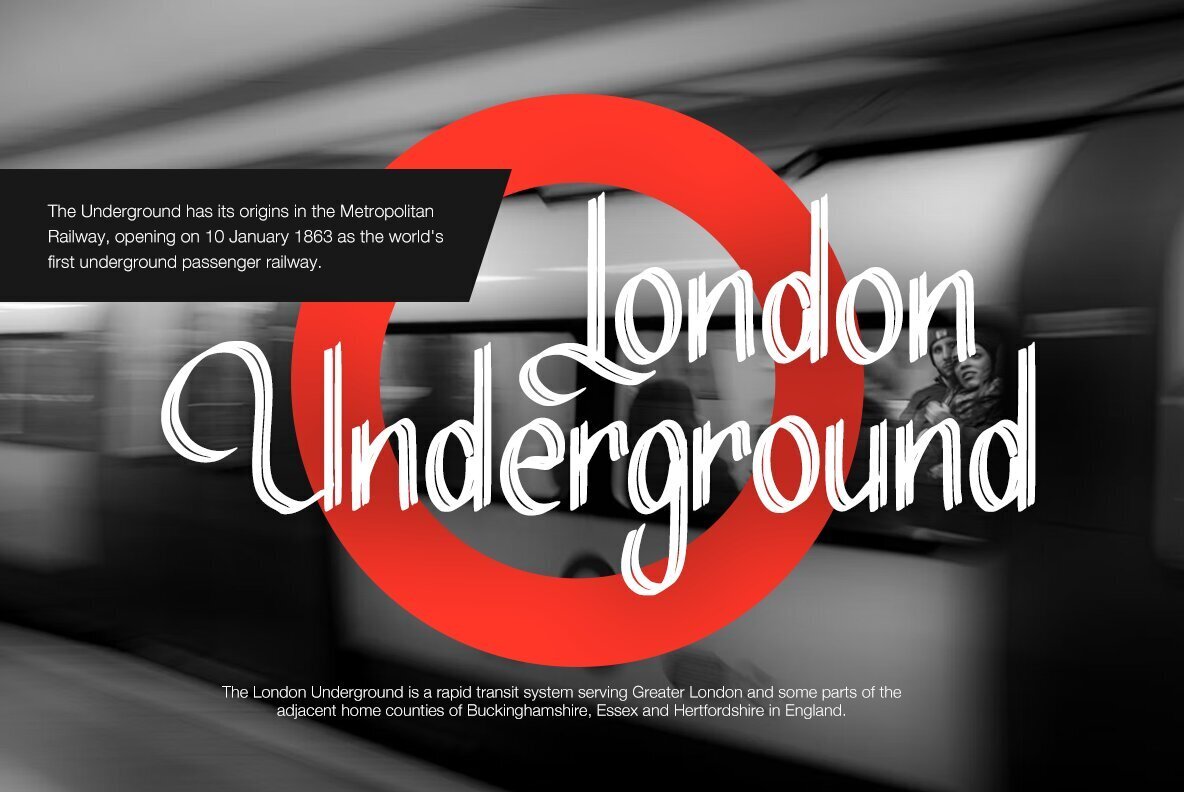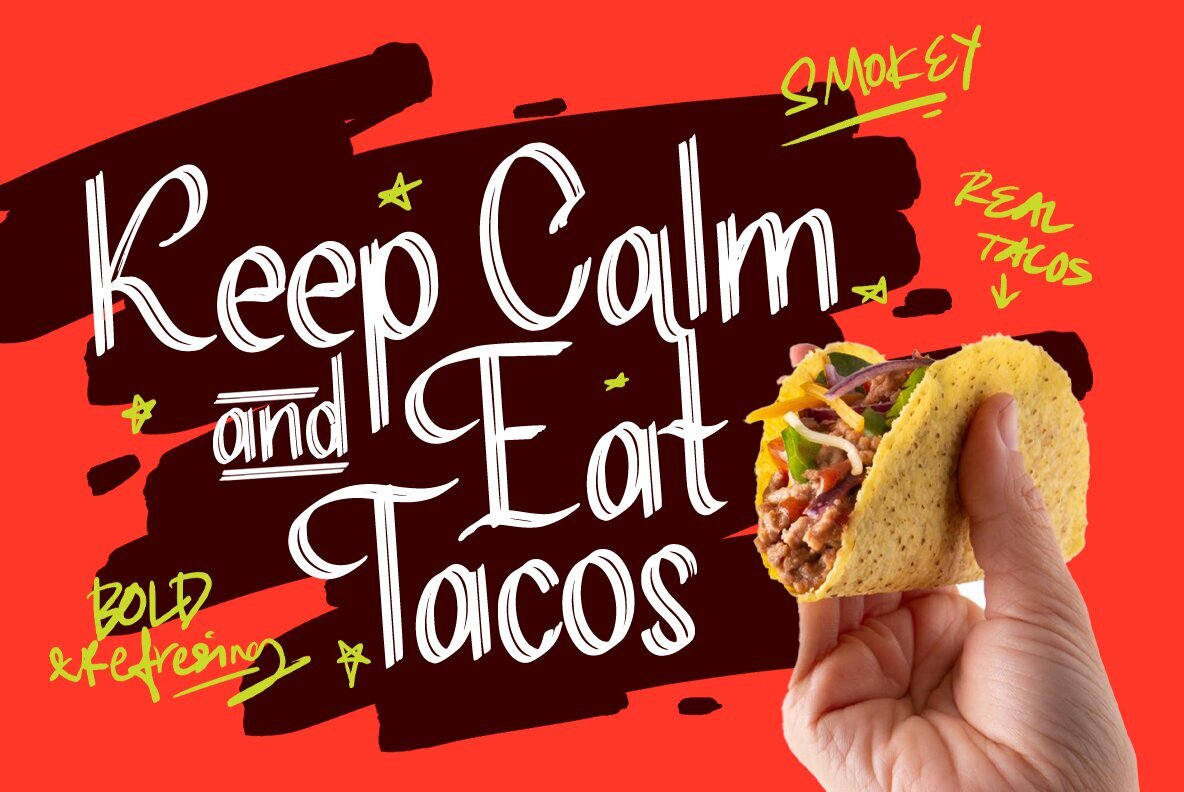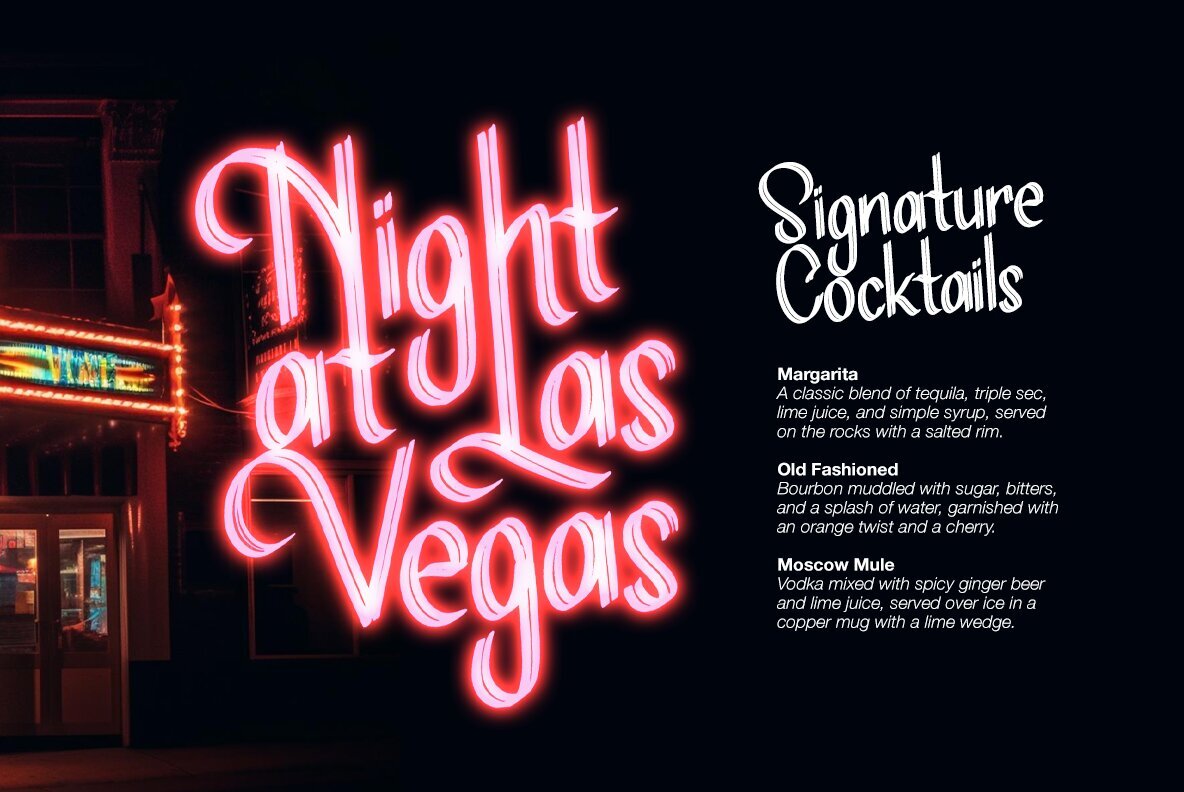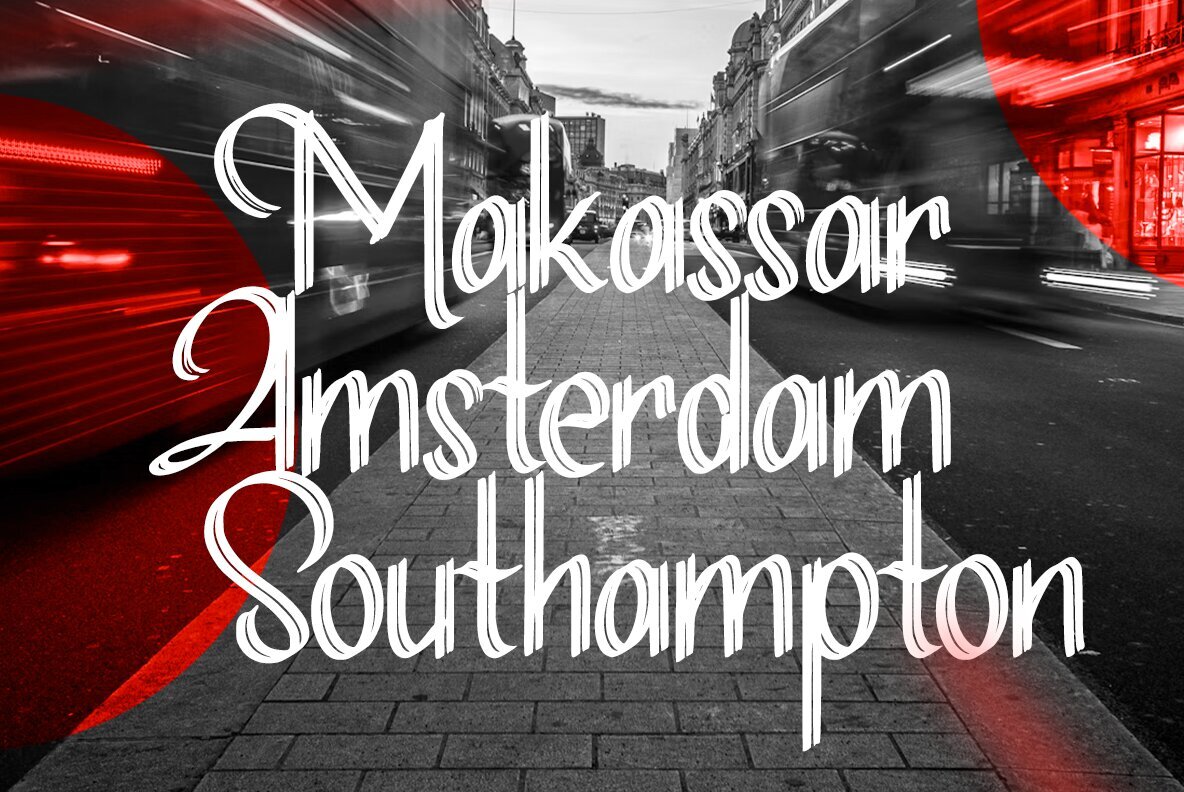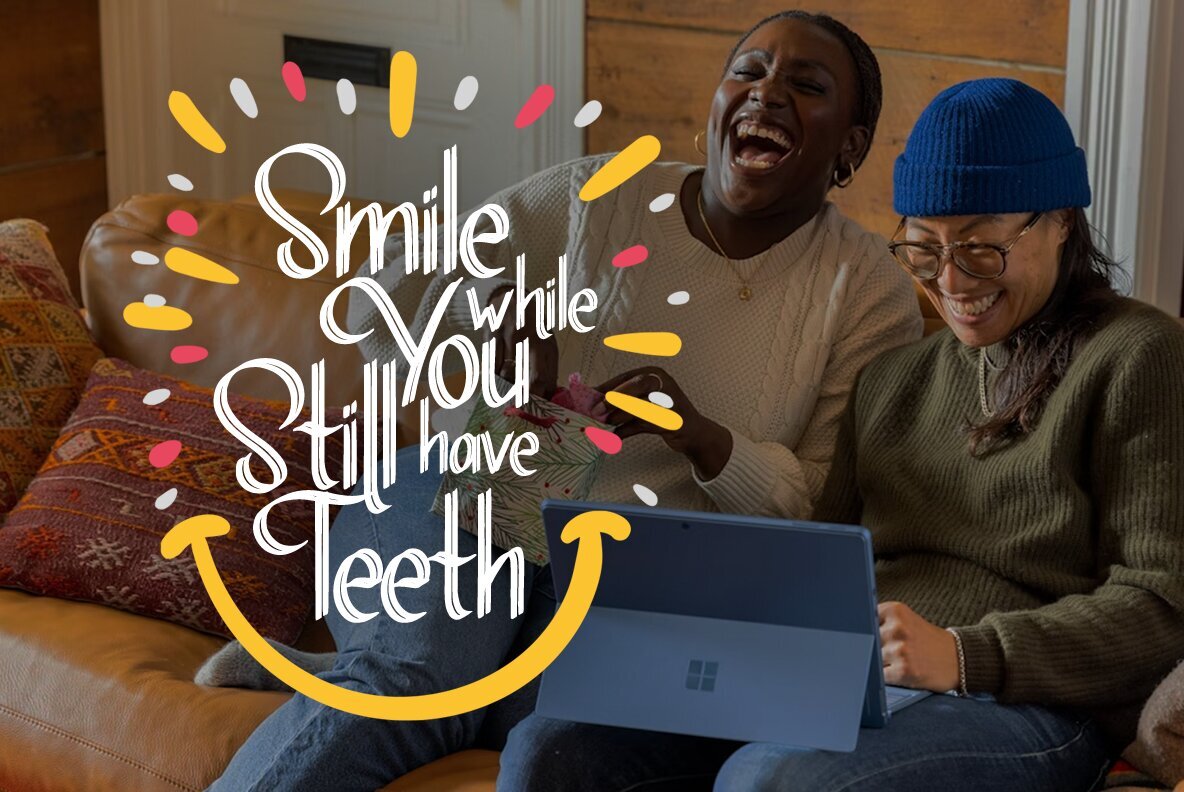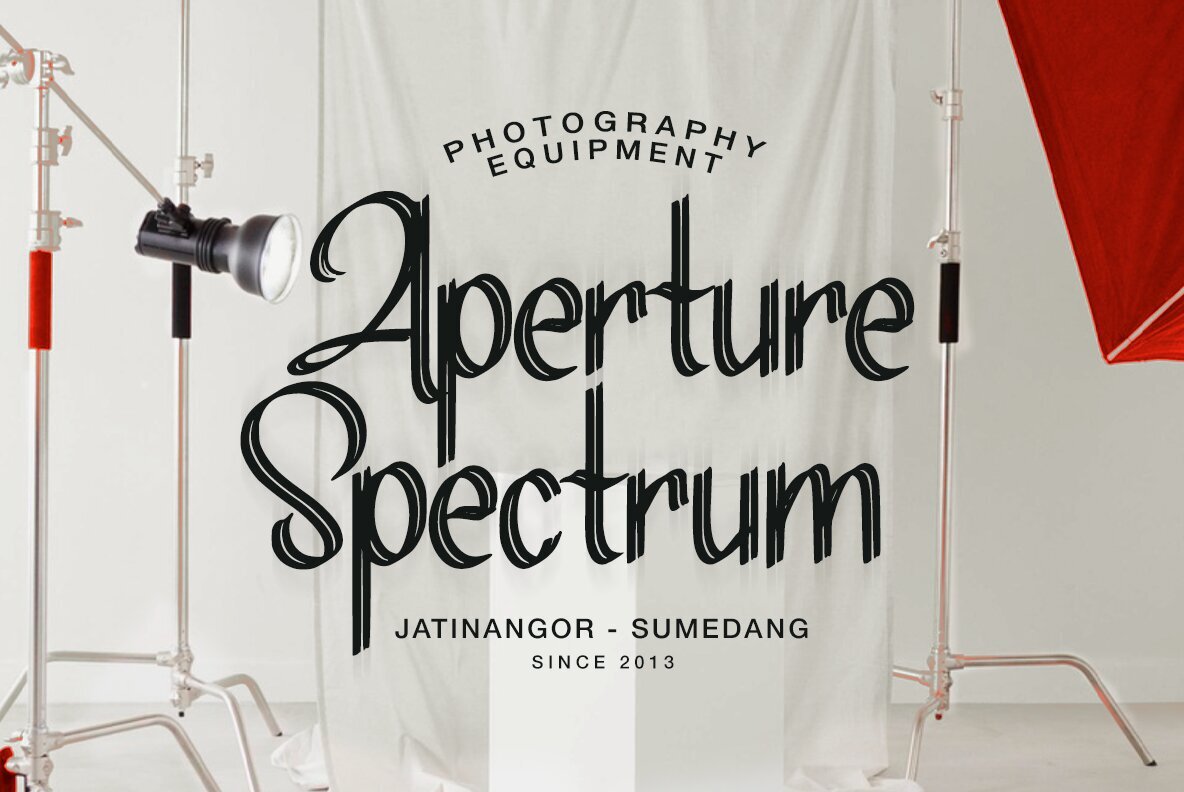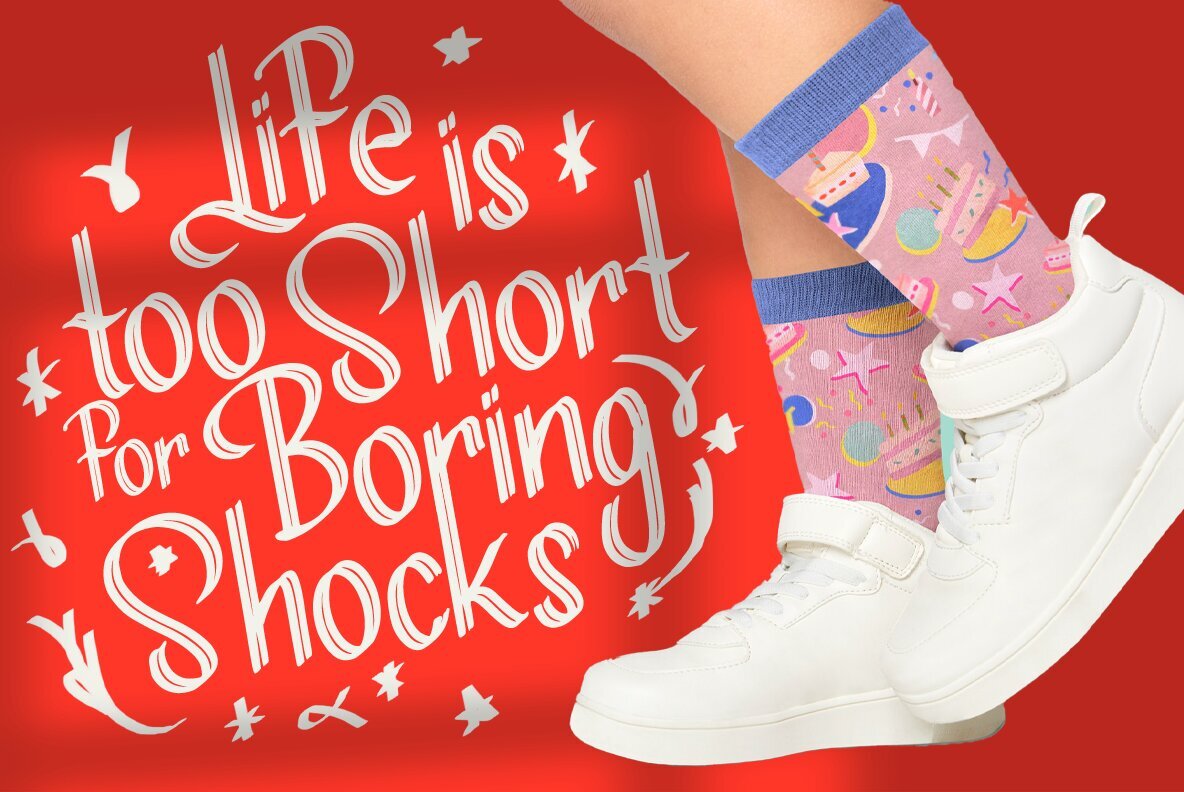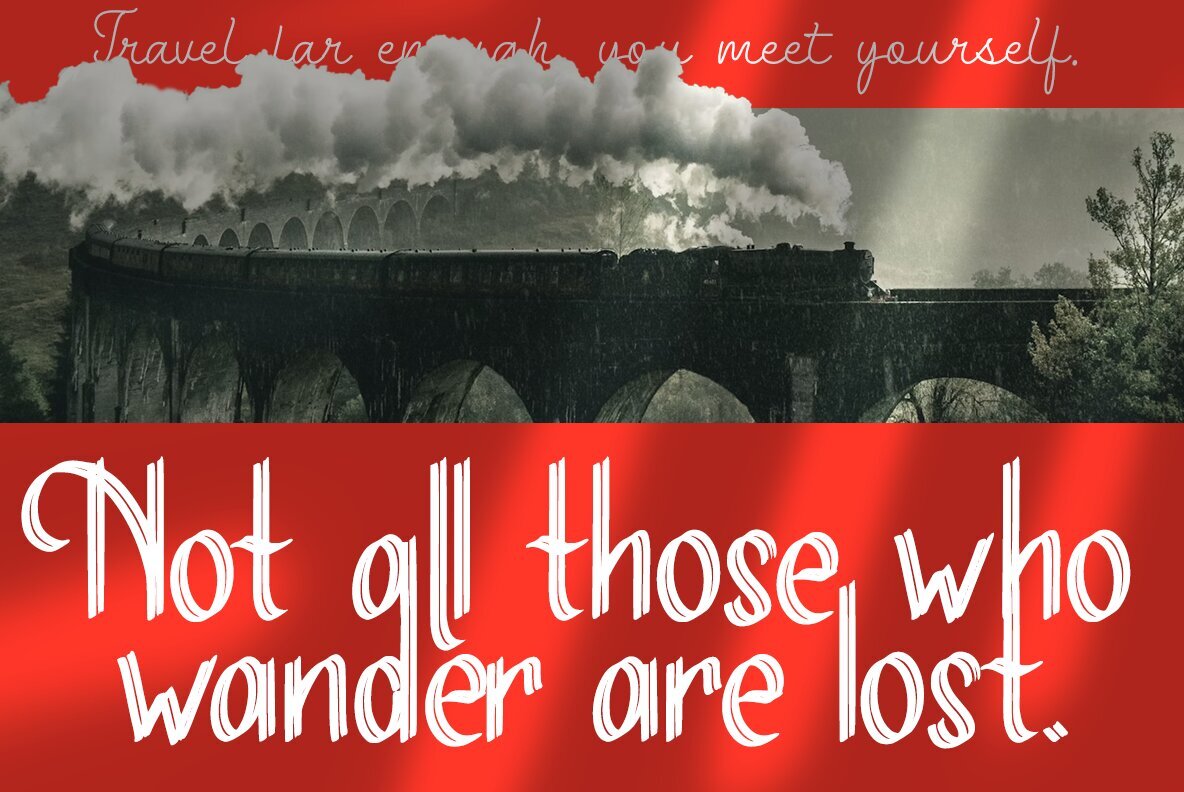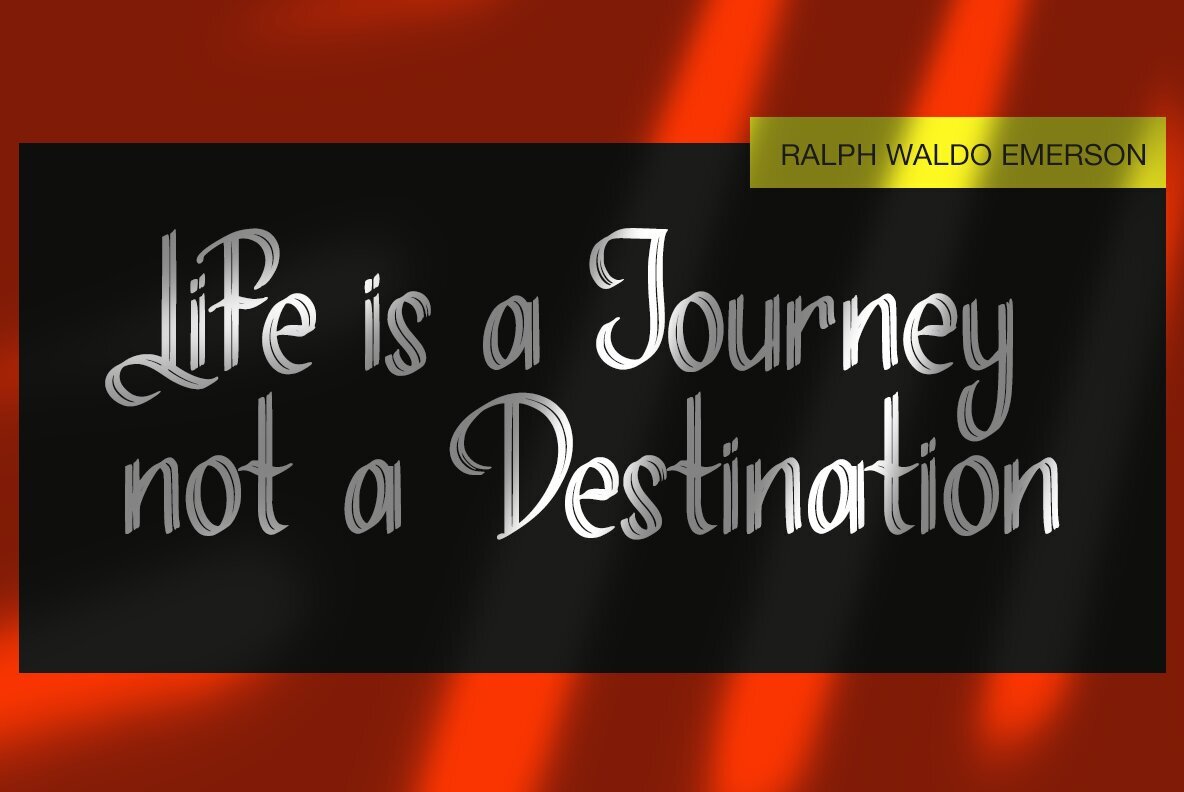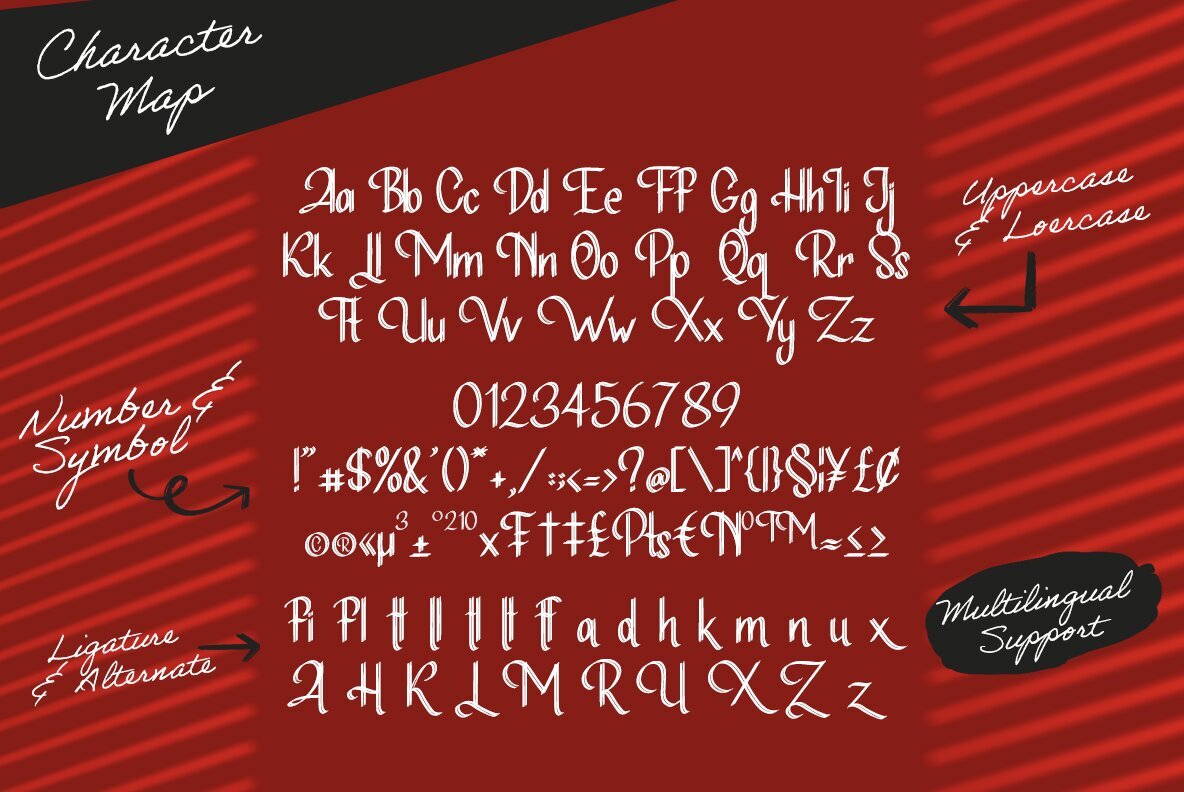
The Railways Font
The Railways Regular
The Railways is a brush stylish script font. This font looks very simple, clean, and elegant. Specially designed by skilled hands makes this font is the perfect fit for all your big projects. The Railways is perfect for branding projects, logo, wedding designs, social media posts, advertisements, product packaging, product designs, label, photography, watermark, invitation, stationery and any projects that need handwriting and stylish taste.